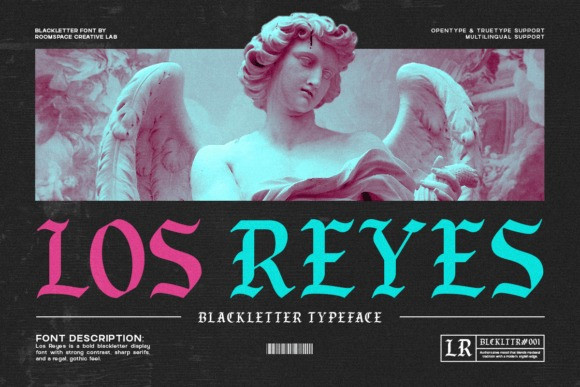
Los Reyes Font
Los Reyes Font is a bold gothic blackletter display typeface designed with sharp serifs, strong contrast, and a regal classic mood. Perfect for tattoos, posters, album covers, streetwear branding, and dramatic creative projects. This typeface delivers a powerful medieval aesthetic while maintaining beautiful readability and modern craftsmanship.